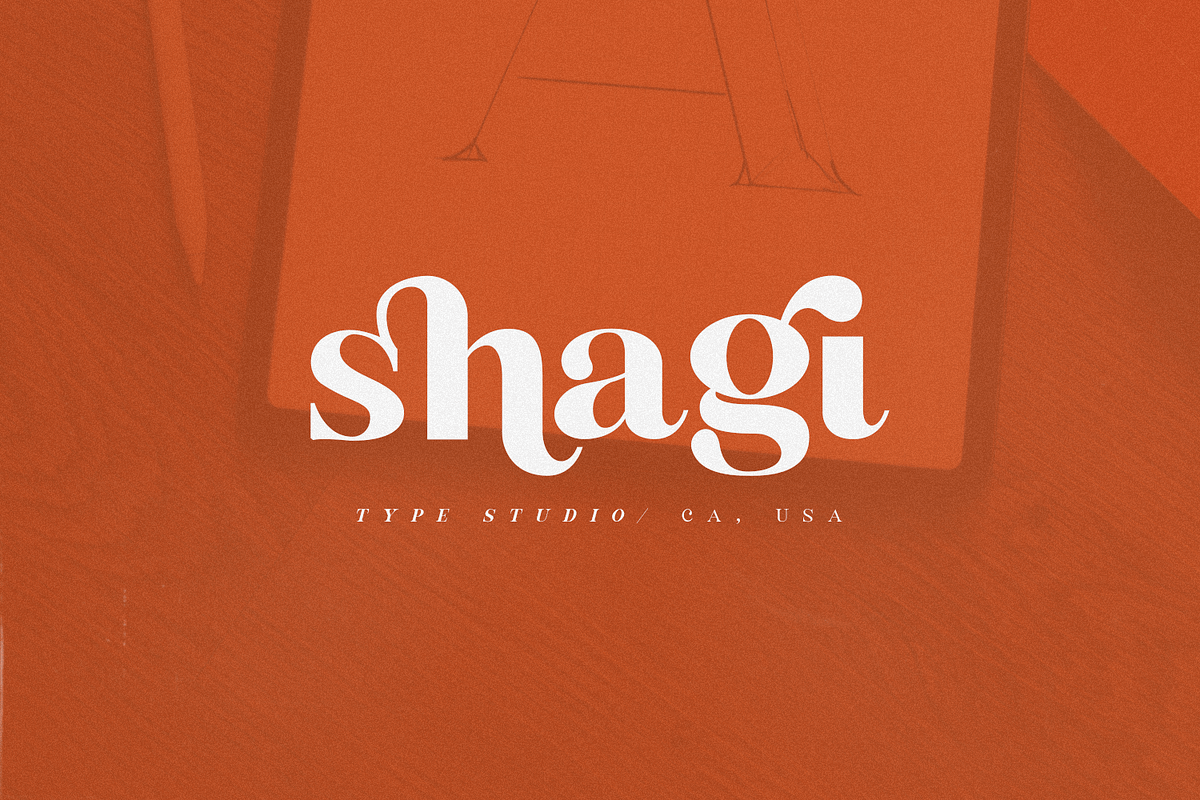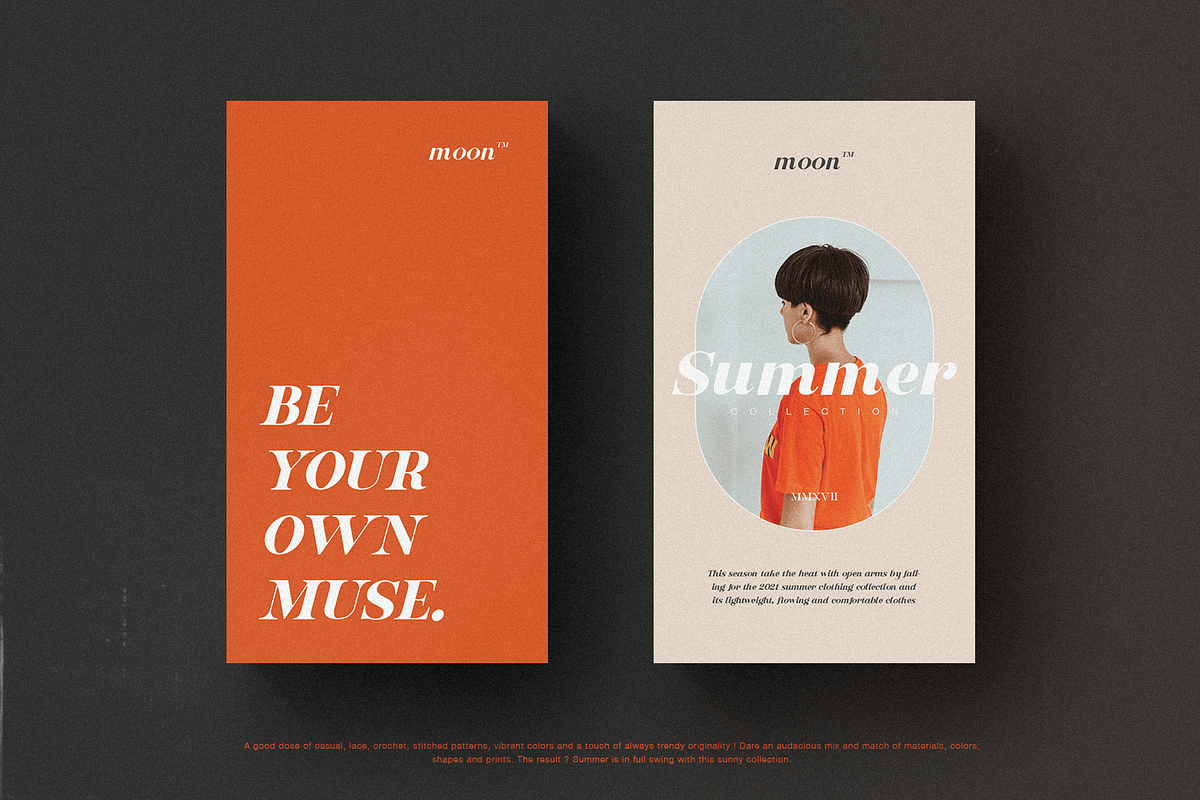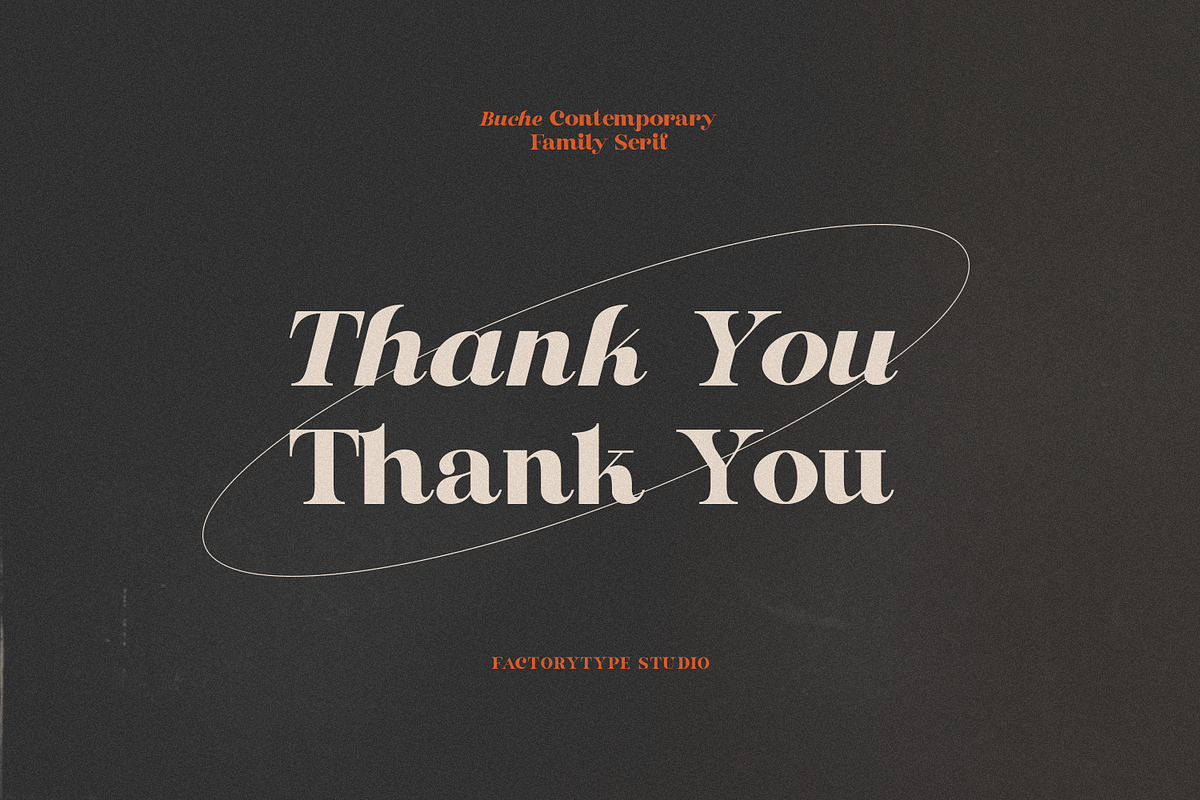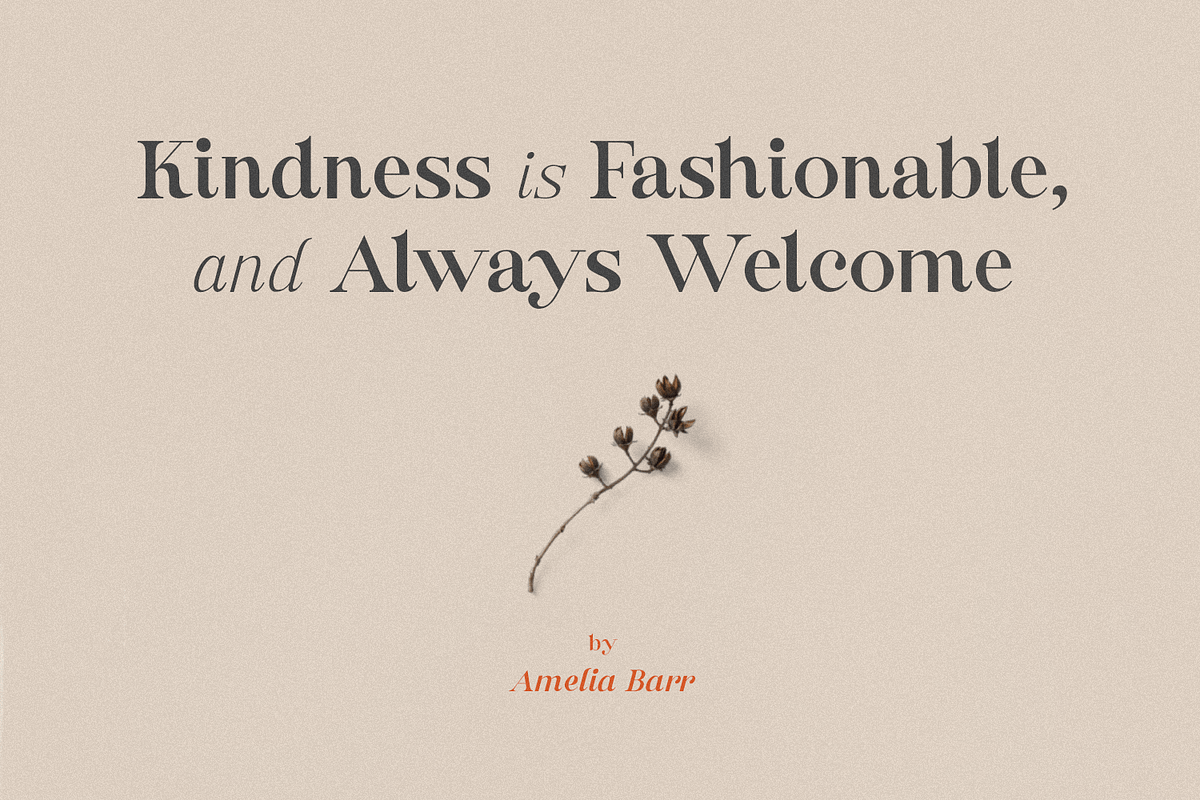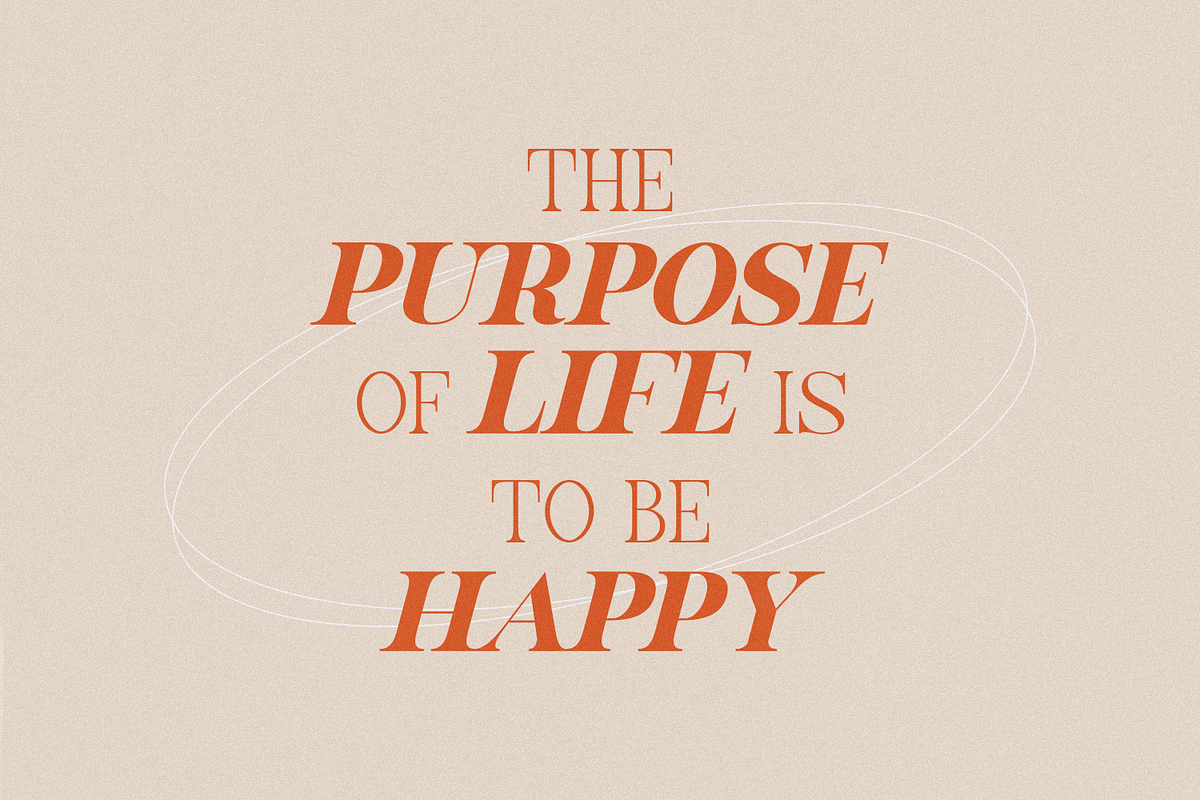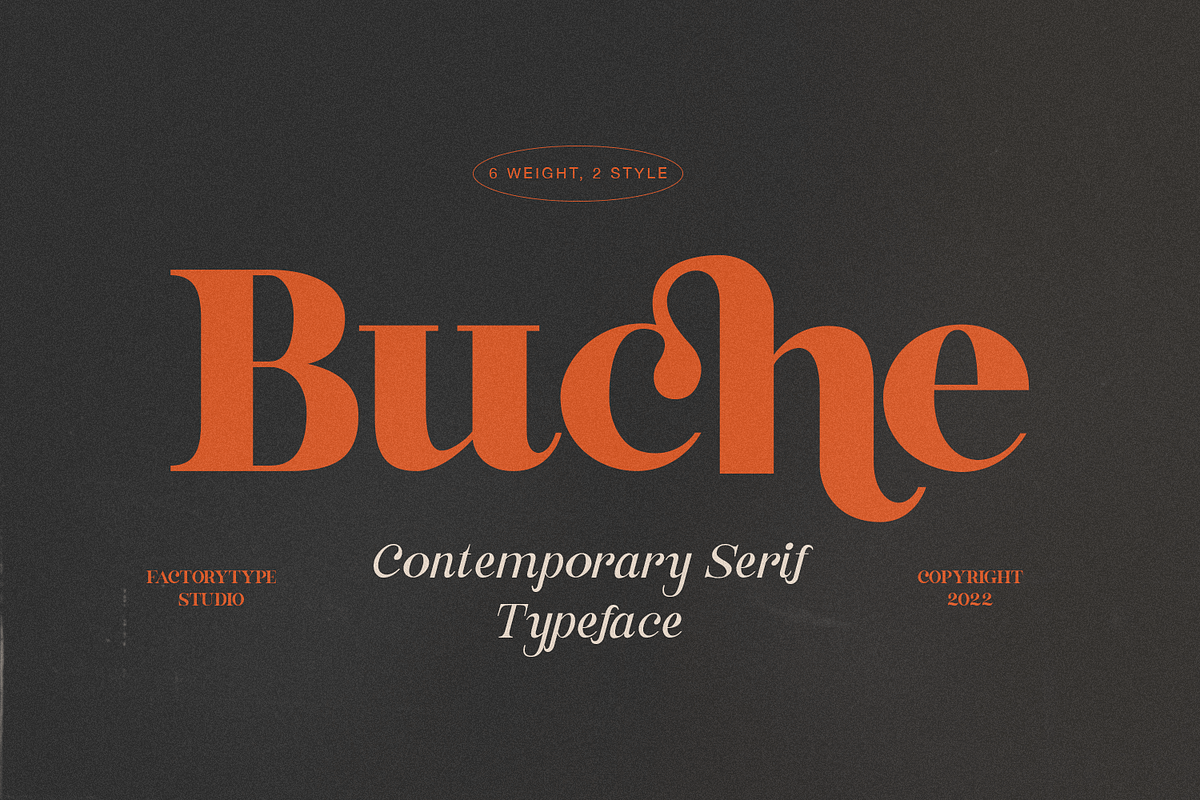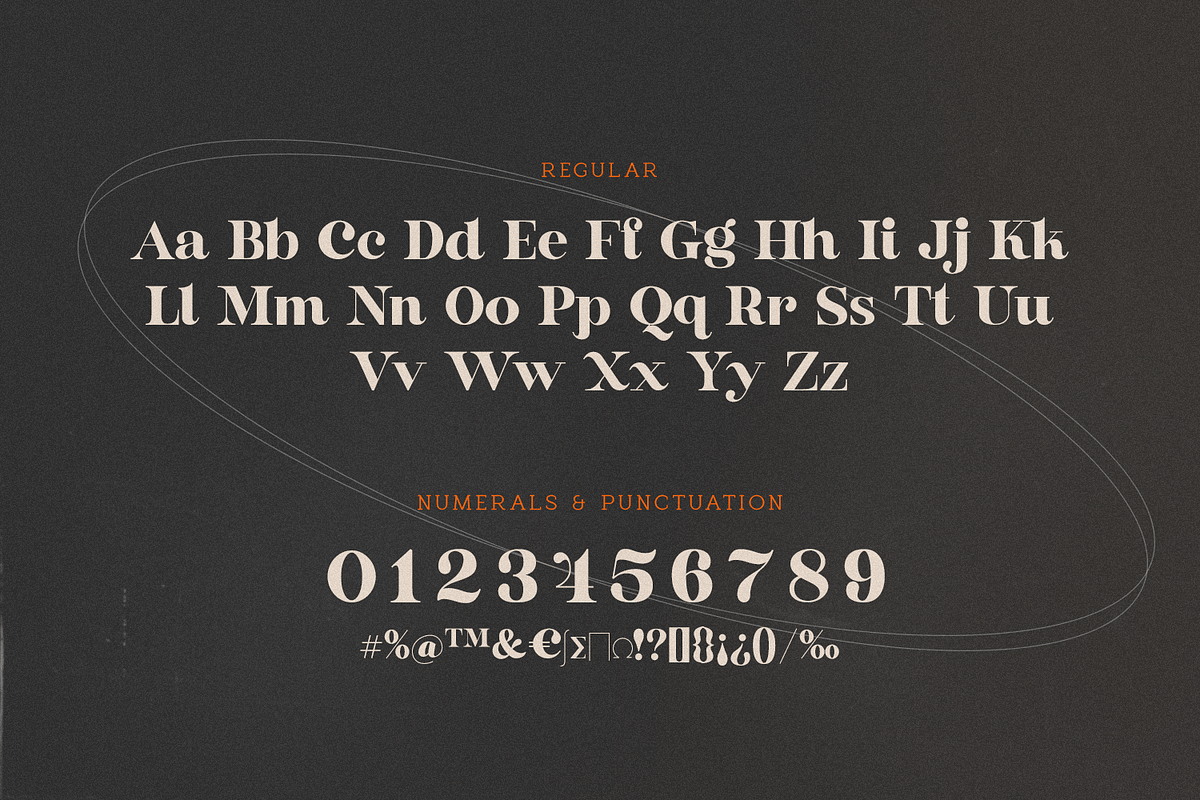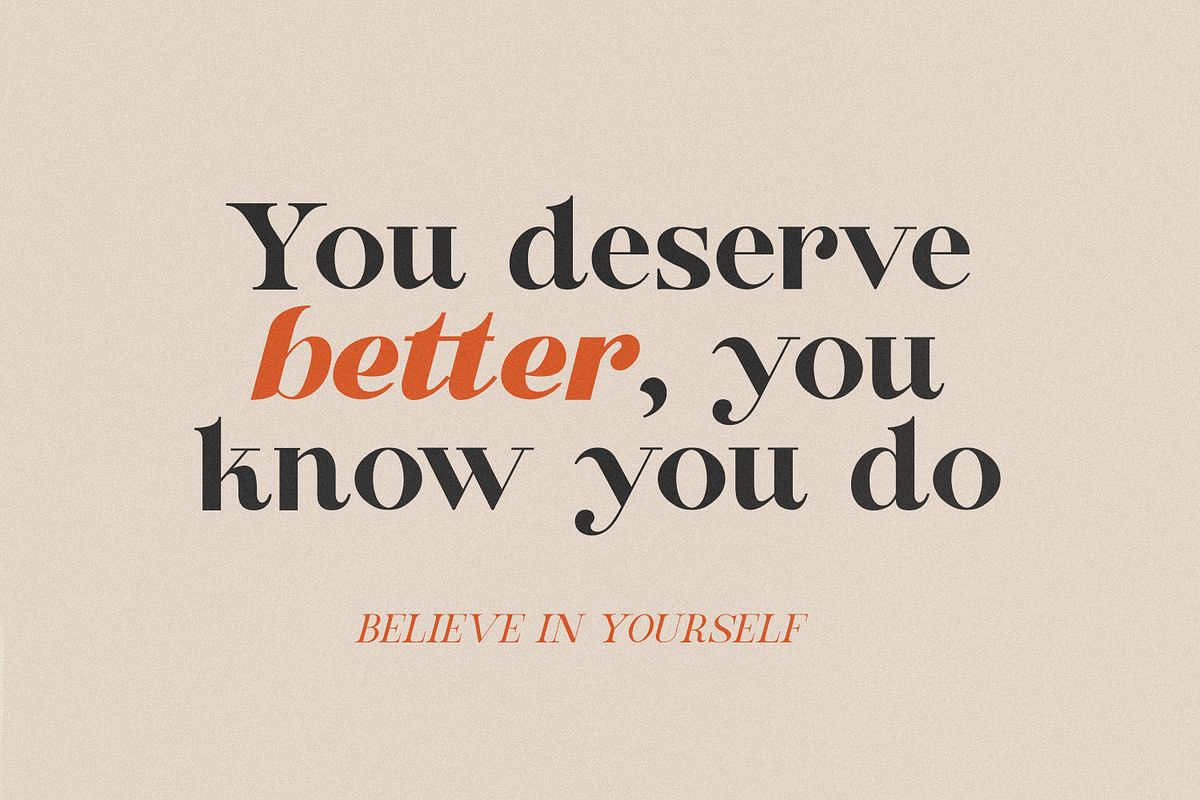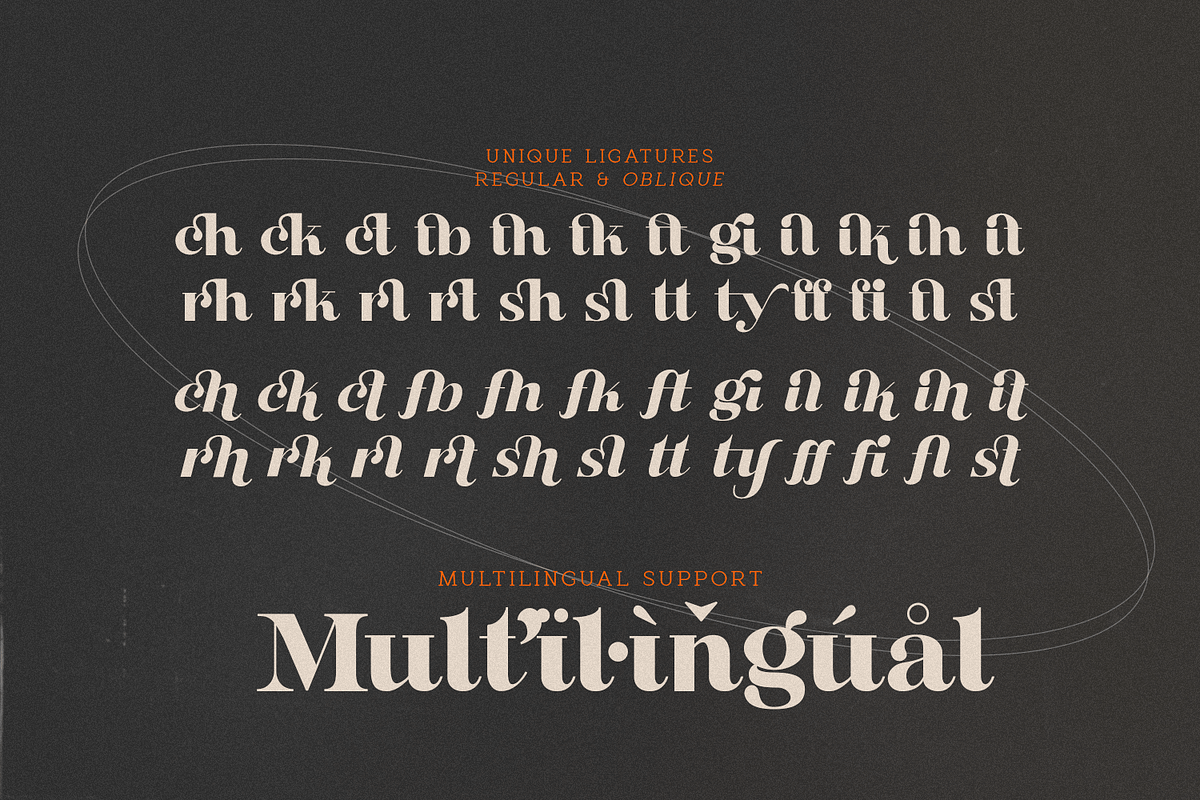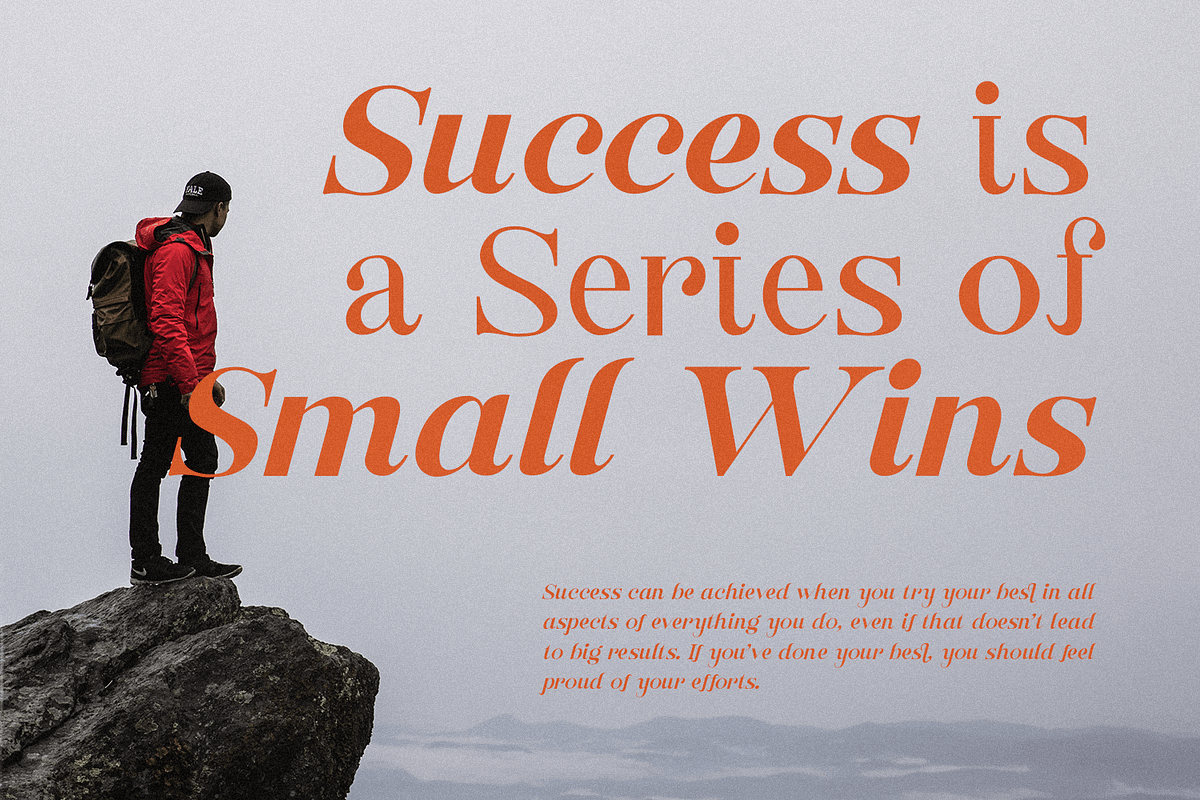
Buche Contemporary Serif
Buche - a brief introduction Buche is a contemporary serif font designed for logo and brand design. It exudes an air of affluence and sophistication, despite its curvy appearance. The ligature fonts will come in handy for whatever your imagination can think up!
- 6 Weights & 2 Styles (Regular & Italic)
- Stylistic Ligatures
- Multilingual Support for ä ö ü Ä Ö Ü ...